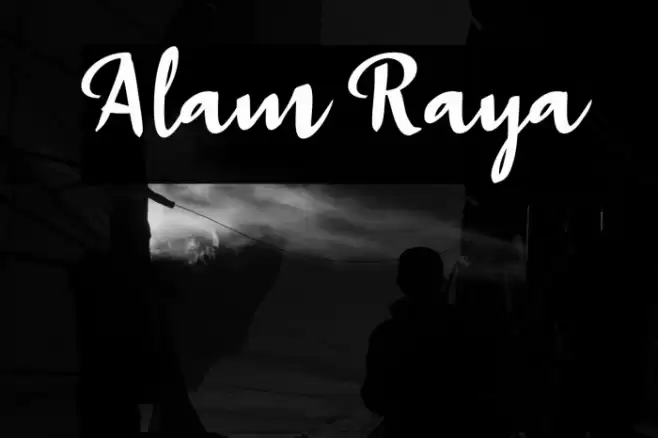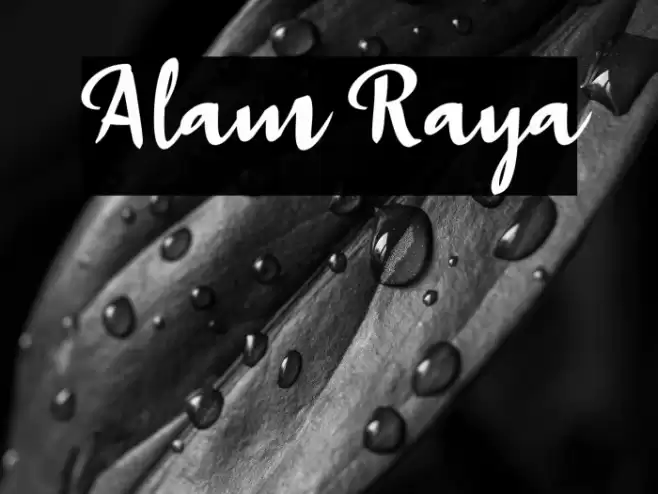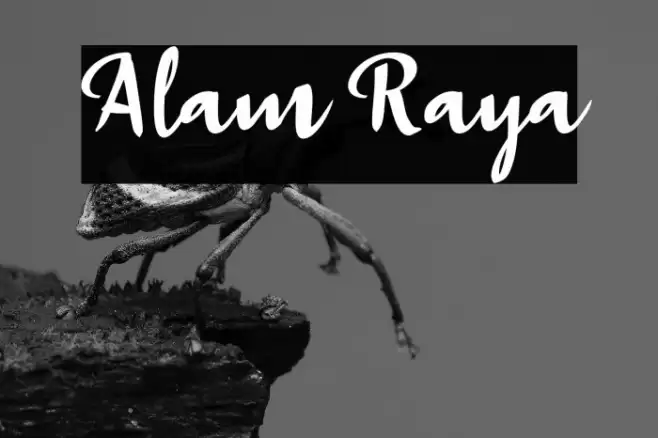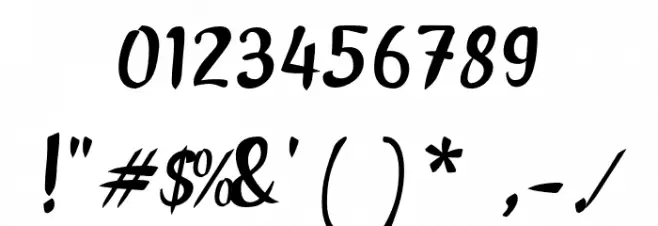
Alam Raya Font
Alam Raya Description
This font exudes a lively and dynamic character with its flowing script style. The letters are elegantly connected, giving a sense of movement and fluidity. The uppercase letters are bold and prominent, while the lowercase letters maintain a consistent flow, enhancing readability. The numerals are well-integrated, matching the overall style of the alphabet. Special characters are crafted with the same attention to detail, ensuring a cohesive look across all glyphs. This font is ideal for projects that require a personal touch, such as invitations, greeting cards, or branding materials. Its handwritten appearance adds warmth and personality to any design.
A lively, flowing script font with elegant connections and a personal touch from Uncategorized fonts.
- Proposed Projects: Ideal for invitations, greeting cards, branding, and any design needing a personal touch.
- Use Case: Headlines, Logos, Invitations